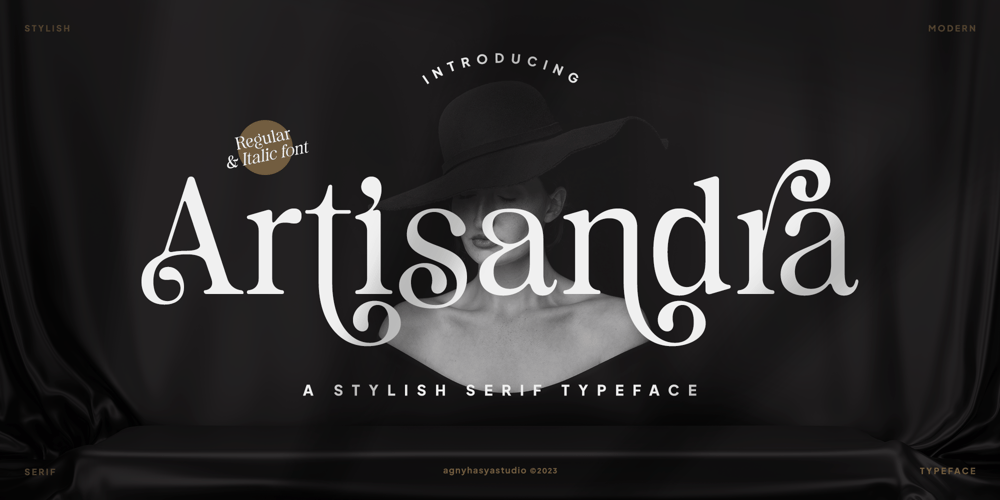
Artisandra Font Family was designed by Firman Maulana and published by Agny Hasya Studio. Artisandra contains 2 styles and family package options. Artisandra Is a Decorative Stylish Serif Display Typeface That Is Elegant, Classic Yet Modern. It Comes in 2 (Two) Style (Regular and italic) and Is Created With Stylistic Alternates and Ligatures. Combine It and Make Your Perfect Typography Design!Featured with Uppercase and Lowercase, Numeral and Punctuation, Multilingual Support, and Opentype Features.Perfect for Your Design Projects Like Logos, Branding, Advertising, Product Designs, Stationery, Magazine Designs, Book/Cover Title Designs, Photography, Art Quotes, Wedding Designs, Fashion Designs, Special Events, Labels, Product Packaging, and More.